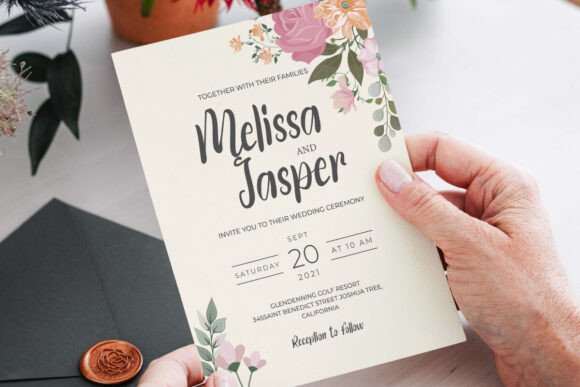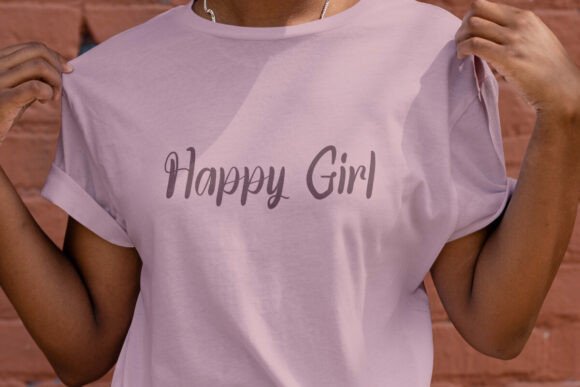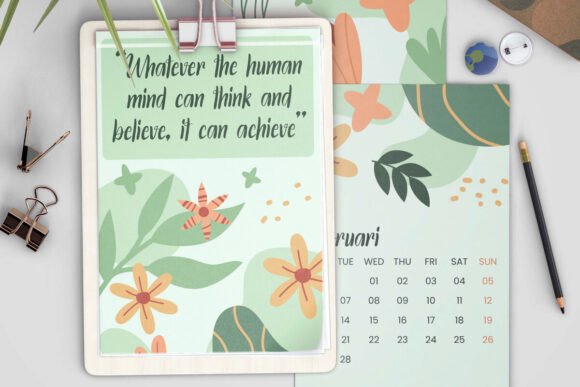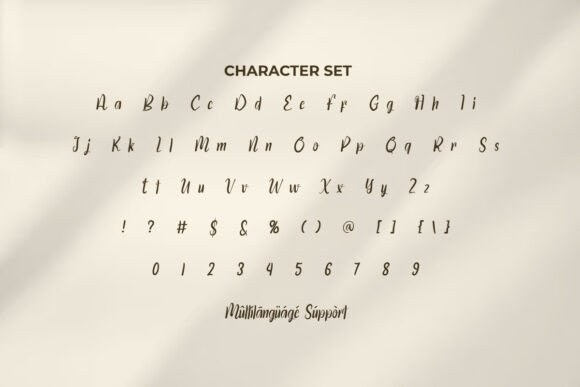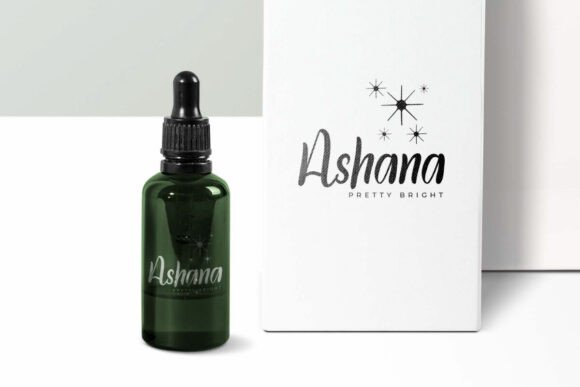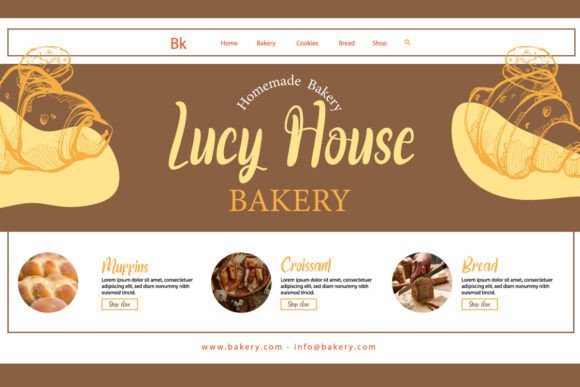
Introducing April Dump Font: The Perfect Feminine Calligraphy Script Font
Are you a designer or crafter looking for a font that adds a touch of femininity and elegance to your creative projects? Look no further than April Dump Font, a lovely calligraphy script font that is sure to make your designs shine. With its beautiful, flowing lines and delicate curves, this font is perfect for a wide range of applications, from brand logos and marketing materials to invitations and packaging.
What Makes April Dump Font So Special?
April Dump Font is a carefully crafted calligraphy script font that is designed to be both visually stunning and easy to read. Its feminine theme makes it perfect for designs that require a touch of elegance and sophistication, while its clarity and legibility ensure that your message gets across clearly. Whether you’re creating a brand logo, a social media graphic, or a marketing brochure, April Dump Font is the perfect choice.
Perfect for a Wide Range of Creative Projects
One of the best things about April Dump Font is its versatility. This font can be used for a wide range of creative projects, including:
- Brand logos: Create a beautiful and memorable logo for your business or brand with April Dump Font.
- Invitations: Add a touch of elegance and sophistication to your invitations with this lovely calligraphy script font.
- Marketing materials: Use April Dump Font to create stunning marketing materials, such as brochures, flyers, and posters.
- Packaging: Add a personal touch to your product packaging with this beautiful font.
- Websites: Use April Dump Font to create a stunning website that showcases your brand’s personality and style.
- Screen print: Create beautiful screen prints with April Dump Font, perfect for t-shirts, tote bags, and more.
- Custom design: Use this font to create custom designs for social media, blogs, and more.
Why Choose April Dump Font?
So why choose April Dump Font for your creative projects? Here are just a few reasons:
- Feminine theme: April Dump Font has a beautiful feminine theme that adds a touch of elegance and sophistication to your designs.
- Easy to read: Despite its delicate curves and flowing lines, April Dump Font is still easy to read, making it perfect for designs that require clarity and legibility.
- Versatile: This font can be used for a wide range of creative projects, from brand logos and marketing materials to invitations and packaging.
- High-quality: April Dump Font is a high-quality font that is carefully crafted to ensure that it looks great in any design.
Tips for Using April Dump Font
Here are a few tips for using April Dump Font in your creative projects:
- Use it sparingly: While April Dump Font is beautiful, it can be overwhelming if used too much. Use it sparingly to add a touch of elegance and sophistication to your designs.
- Pair it with other fonts: April Dump Font looks great when paired with other fonts, such as sans-serif fonts or serif fonts. Experiment with different font combinations to find the perfect look for your design.
- Experiment with colors: April Dump Font looks great in a variety of colors, from bold and bright to soft and pastel. Experiment with different colors to find the perfect look for your design.
April Dump Font is a lovely calligraphy script font with a feminine theme that is perfect for a wide range of creative projects. With its beautiful, flowing lines and delicate curves, this font adds a touch of elegance and sophistication to any design. Whether you’re a designer or crafter, April Dump Font is a great choice for anyone looking to create stunning designs that showcase their brand’s personality and style.